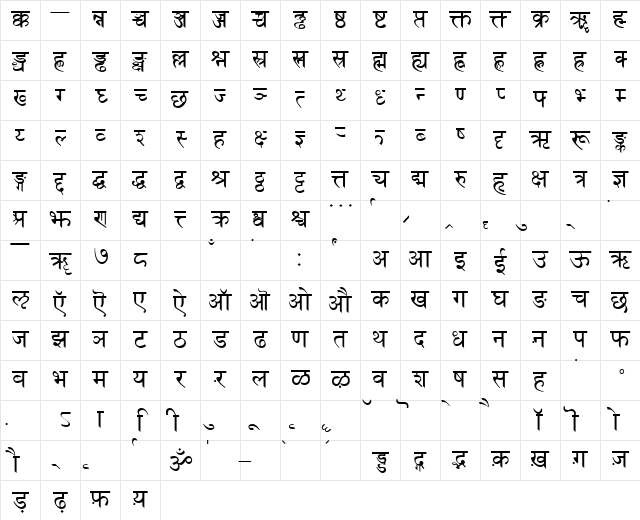
SanskritDelhiSSK Regular
Complete SanskritDelhiSSK Regular glyph index. Displaying only characters natively supported by SanskritDelhiSSK Regular font.
Design Context for SanskritDelhiSSK
SanskritDelhiSSK is a composed and adaptable typeface that performs quietly and consistently across a wide range of design contexts.